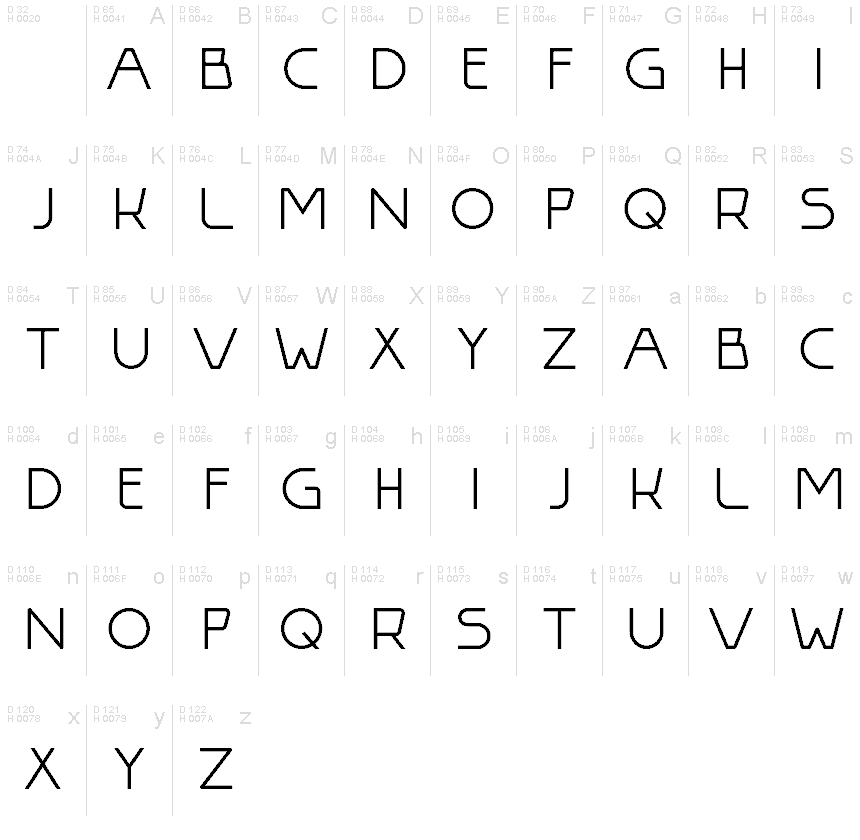
Tokyo Regular
Tokyo font by Vladimir Nikolic is a light, modern sans serif with an airy look. The letters have geometric structures that fit nicely into rounded corners and almost pointy ends. Further, they have an even thickness all the way through with no contrast in sight. Tokyo is a minimalist typeface that was designed as simple as it can be while keeping an attraction point to balance this simplicity.